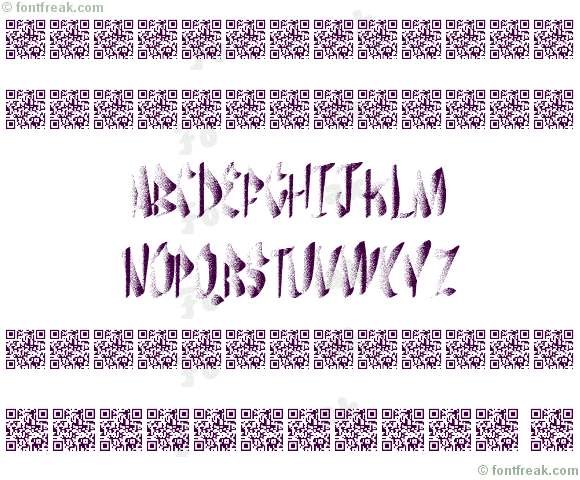
flaunts
Flaunts by Xerographer Fonts is a striking display font that captures attention with its unique visual style. This font falls into the decorative category, characterized by its bold, textured strokes and an artistic flair that makes it suitable for a variety of creative applications. The font features an eye-catching irregular stroke weight that adds depth and character, while its high contrast between thick and thin lines enhances its visual impact. The spacing is thoughtfully designed, allowing the letters to breathe, which further emphasizes the font's distinctive appearance.
The Flaunts font is ideal for a range of use cases, especially those that require a strong visual statement. It works exceptionally well for wedding invitations, where its decorative nature can add a touch of elegance and personalization. Additionally, this font is perfect for movie posters, helping to convey the theme and mood of the film through its artistic expression. Restaurant menus can also benefit from the Flaunts font, providing a unique identity that sets the dining experience apart. Furthermore, it can be employed in branding materials for artisanal products, where a handcrafted look is essential to attract customers.
Targeting graphic designers, small business owners, and content creators, Flaunts offers versatility and a distinctive voice that can elevate any project. Its unique combination of artistic flair and readability makes it a valuable tool for anyone looking to make a lasting impression.